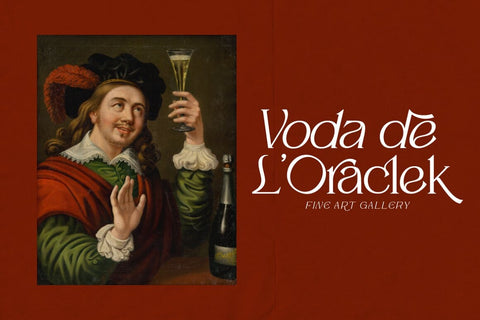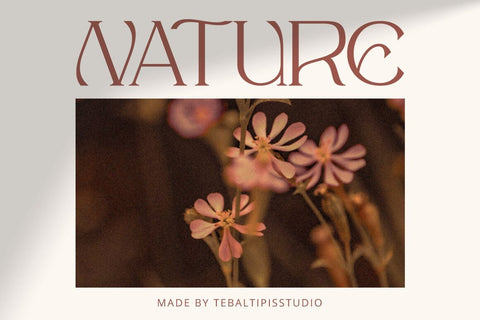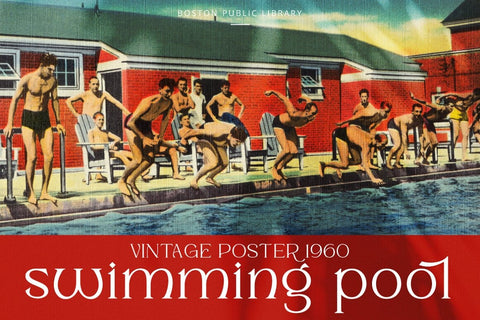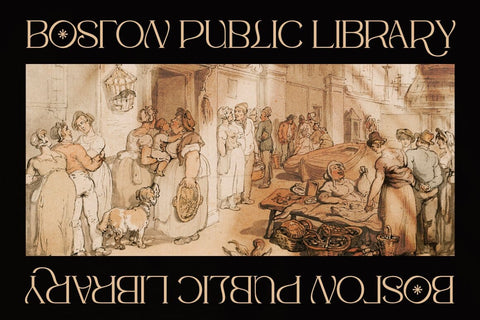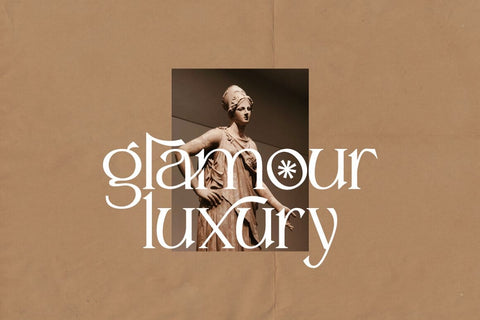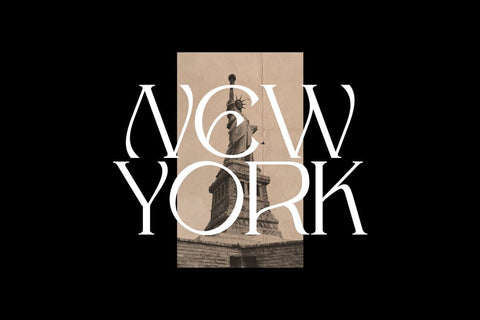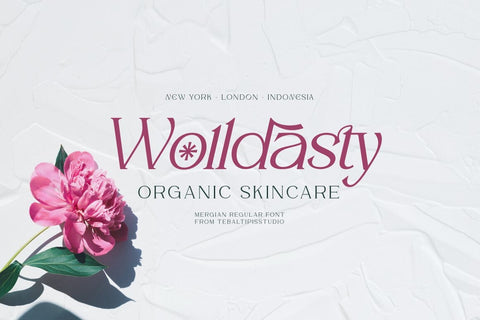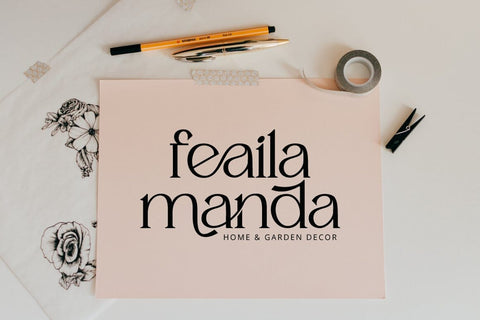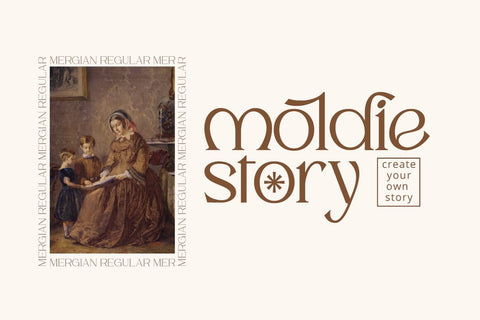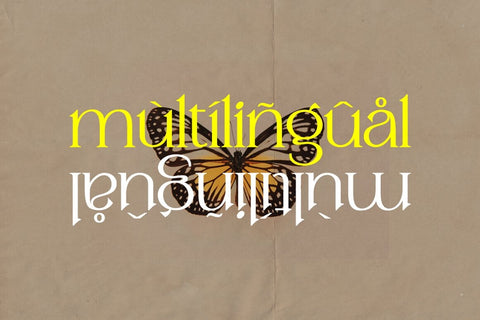
Mergian Modern Serif Typeface
Introducing our new "Mergian" Modern Ligature with Elegant Style this is perfect for branding, logos, invitation, masterheads and more.